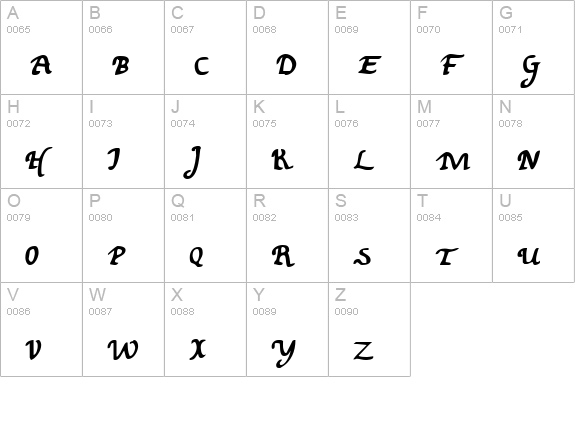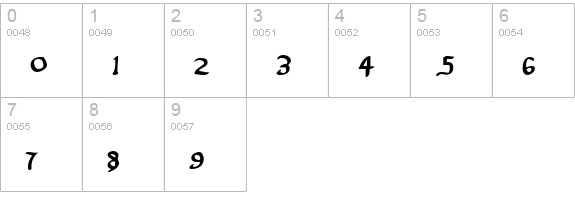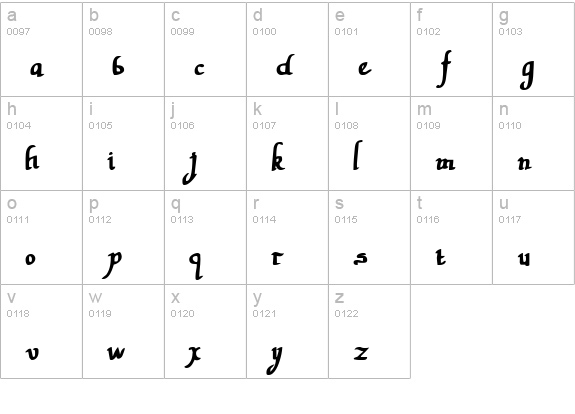
Valley Forge Bold is a strong, high-contrast variant in the Valley typeface family \xE2\x80\x94 well suited to headlines, attention-grabbing titles, and strong calls-to-action.
Valley Forge Bold font exudes a bold and commanding presence with its strong and confident letterforms. This versatile typeface is perfect for making a statement in headlines, titles, and branding materials. The thick strokes and sharp angles give Valley Forge Bold a modern and edgy feel, while still retaining a sense of classic elegance. What sets Valley Forge Bold font apart is not only its striking design, but also the fact that it is available for free download at FontsMarket.com. This means that you can easily access this high-quality font to enhance your projects without any cost. Whether you're working on a poster, logo, or any other design project, Valley Forge Bold font is sure to make a bold impact and elevate your work to the next level. Download it now and unleash your creativity with this exceptional typeface.